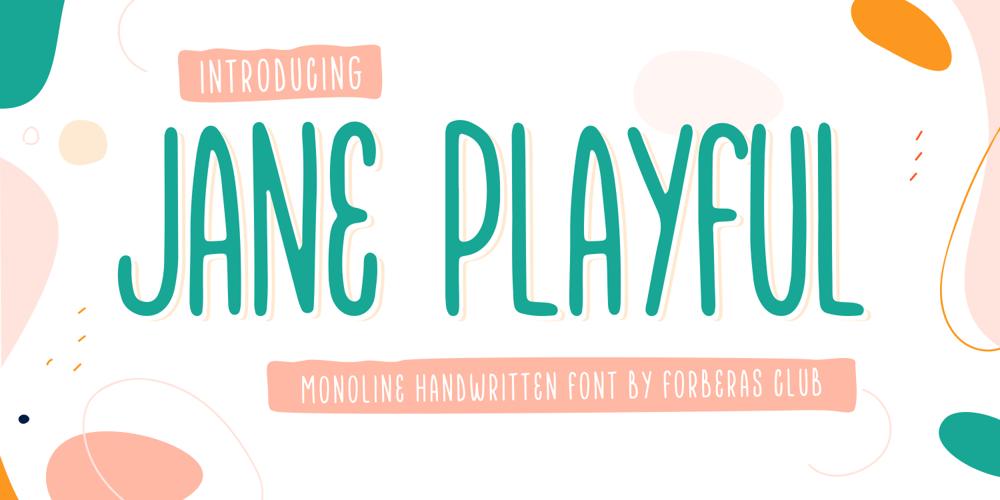
Jane Playful
Jane Playful font
Jane Playful Font Family was designed by ANGGI HERMAWAN and published by Forberas Club. Jane Playful contains 1 styles and family package options. Jane Playful is special handwritten type for playful moment or cute moment.